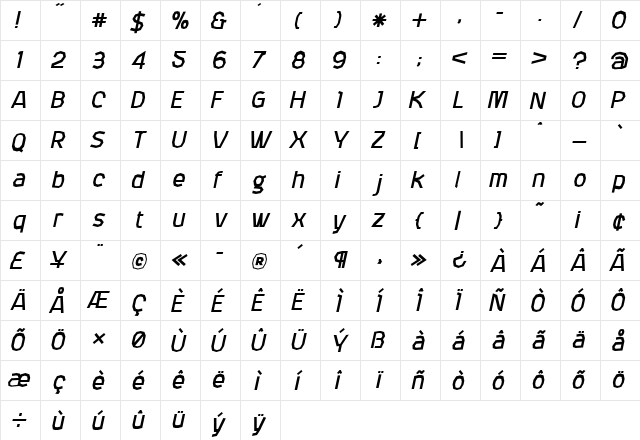
Attac Italic Font Preview
Attac Italic
Design Context for Attac Typeface
Attac offers clean, dependable letterforms without strong stylistic allegiance, making it a practical choice for designers who need flexibility. Its italic angle brings a sense of urgency and motion to the letterforms.
Pro Tip: Try Attac for annotation and caption copy alongside an upright companion — the contrast in angle creates a dynamic but ordered typographic system.